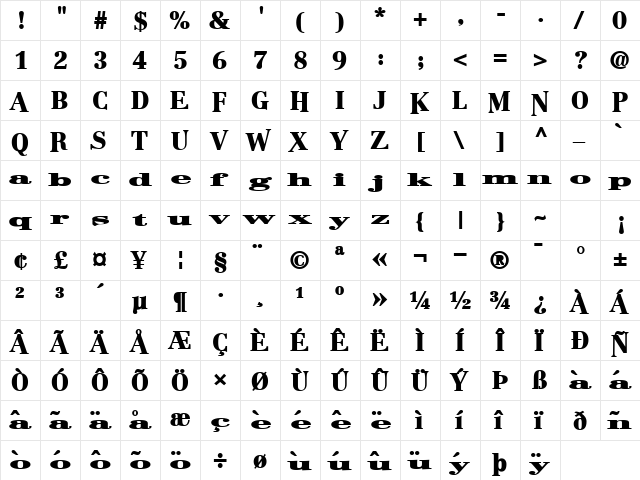
BostonLifeToday1 Bold
Design Context for BostonLifeToday1 Typeface
BostonLifeToday1 offers clean, dependable letterforms without strong stylistic allegiance, making it a practical choice for designers who need flexibility. The heavy weight commands attention and anchors typographic hierarchies.